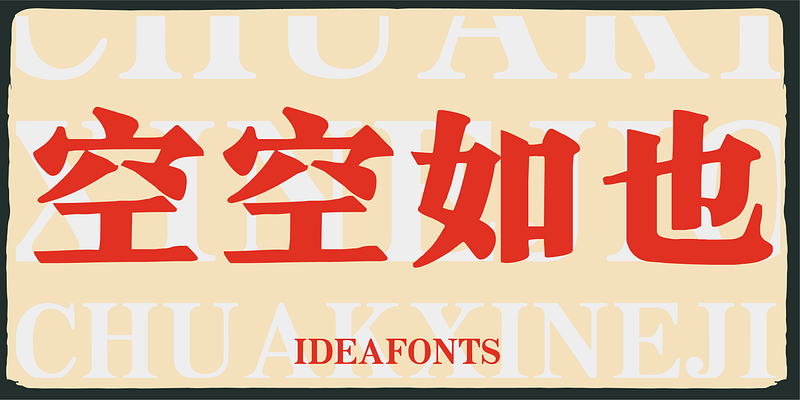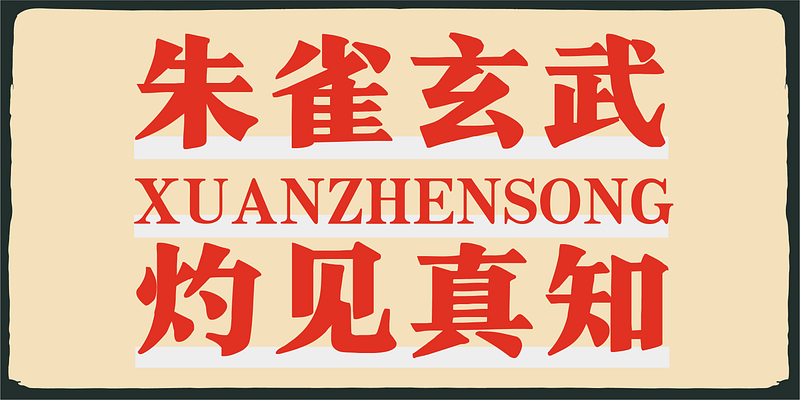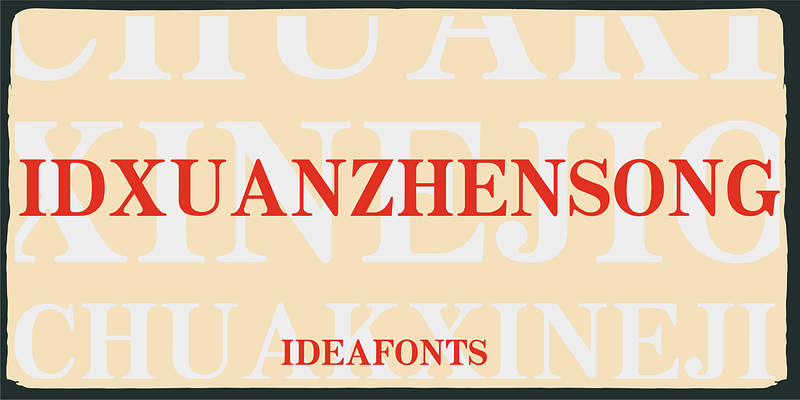
This font has thin horizontal and thick vertical. After combing slight suquare Cū Sòng and flavor of Kè Sòng, the font is slightly tilted and more human.